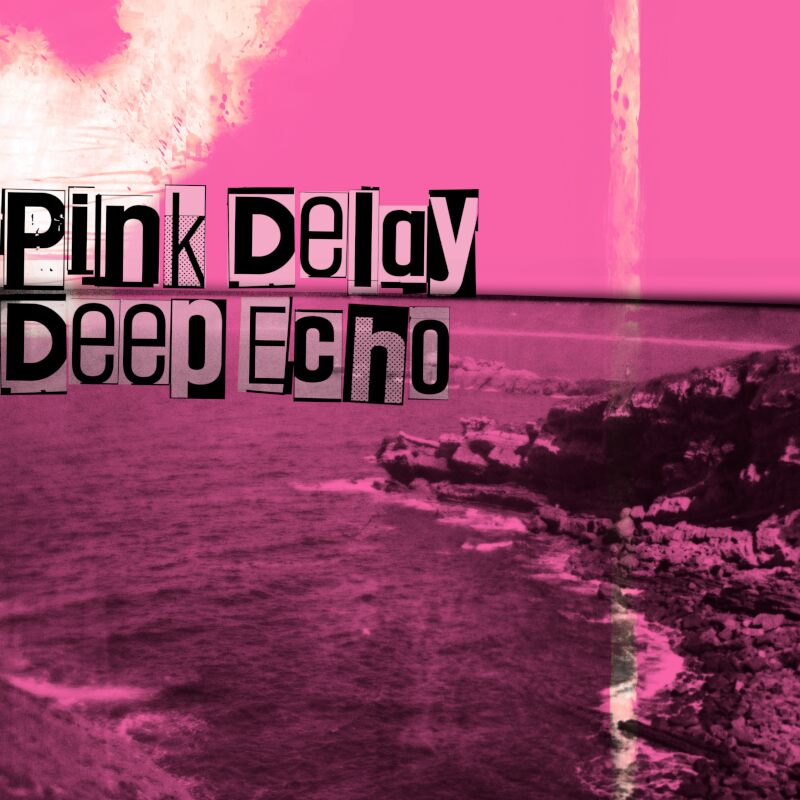
Pink Delay Deep Echo
Pink Delay Deep Echo font by Juha Korhonen is a display typeface with a distorted and grunge-inspired look. The condensed width gives it an eclectic feel, combining textural elements with a powerful vintage ambiance. This visually striking font captures an enigmatic contemporary appeal that will impress all those who get to experience its impact firsthand.
A free display font, Pink Delay Deep Echo has countless possible uses: posters, advertisements, signs, flyers, invitations (especially for parties), banners and social media posts. This is the right typeface for projects where standing out is crucial!